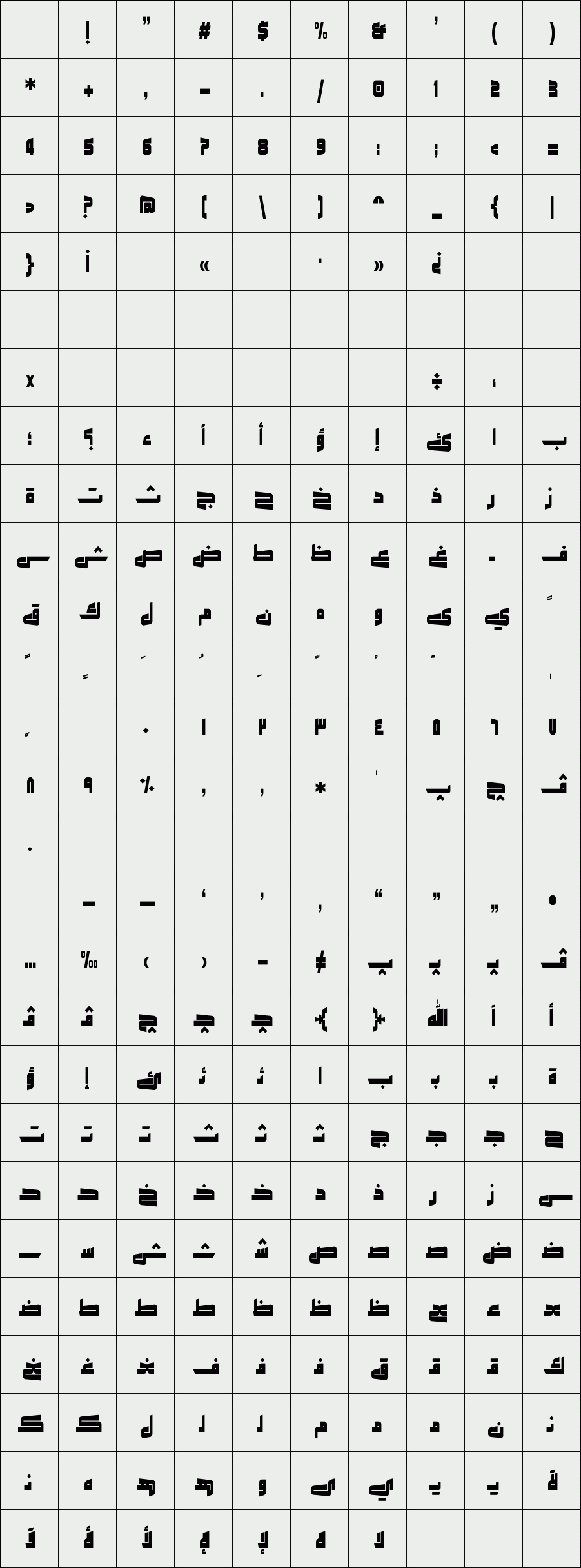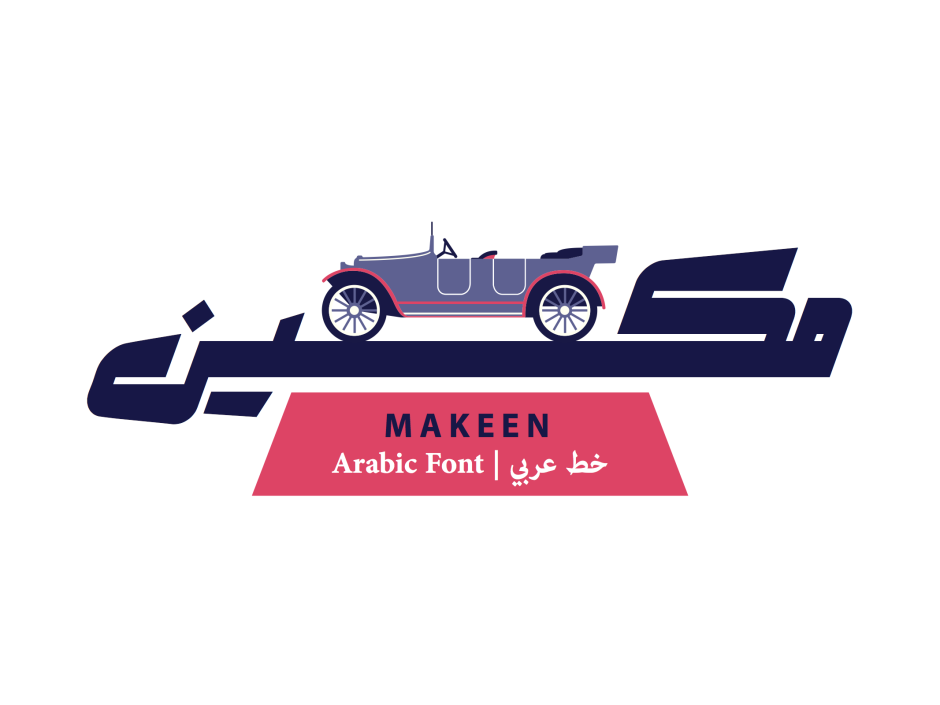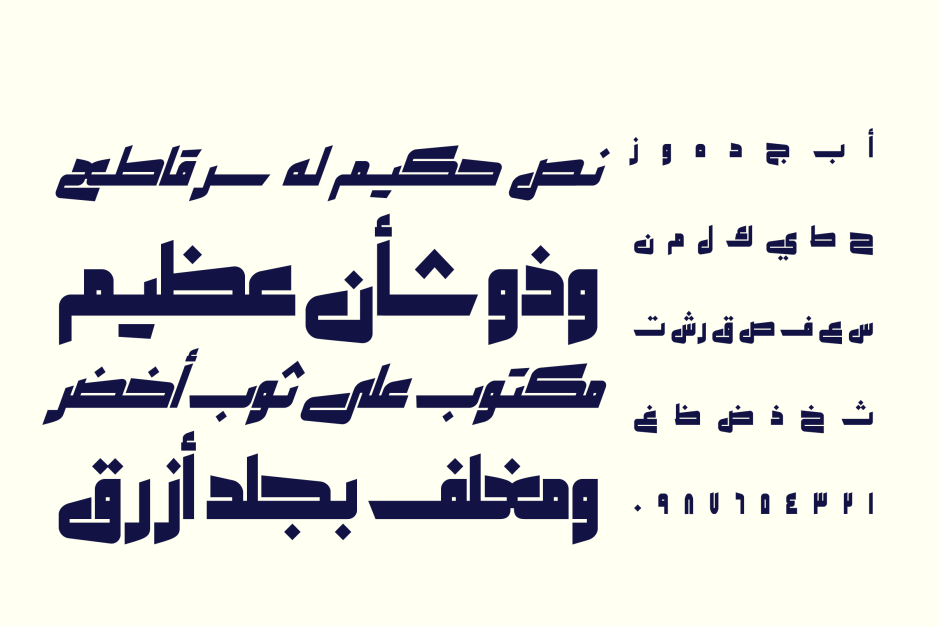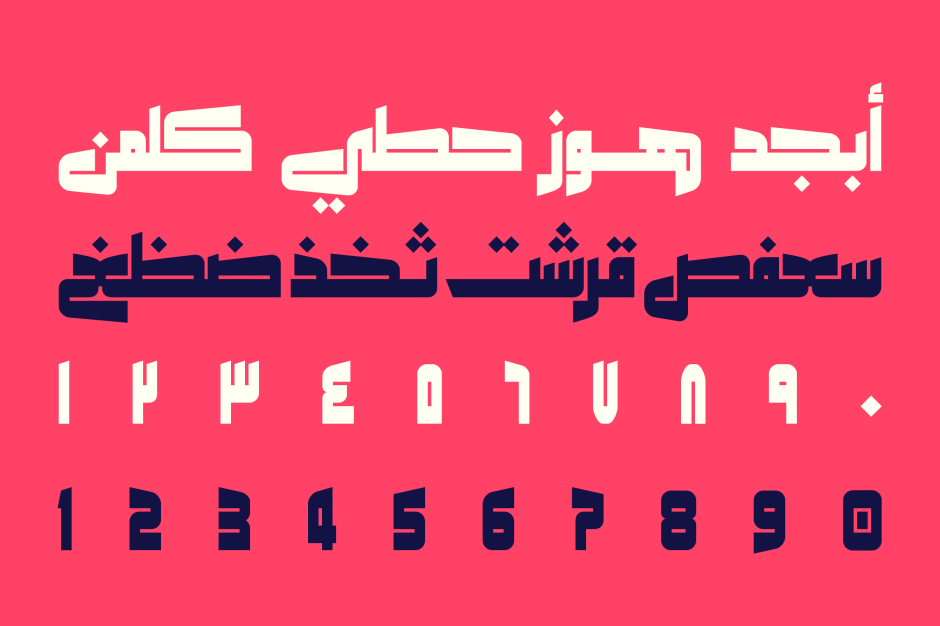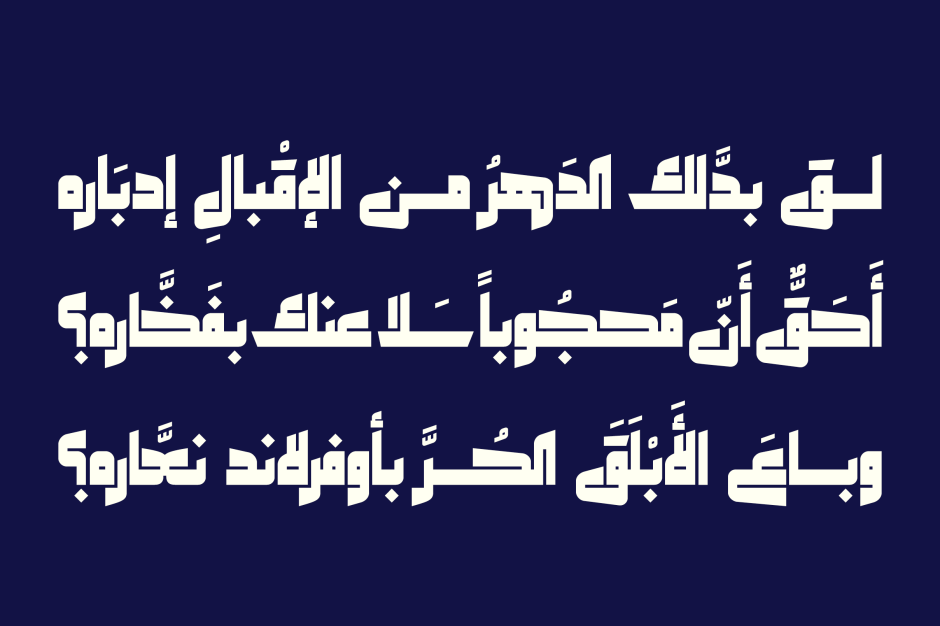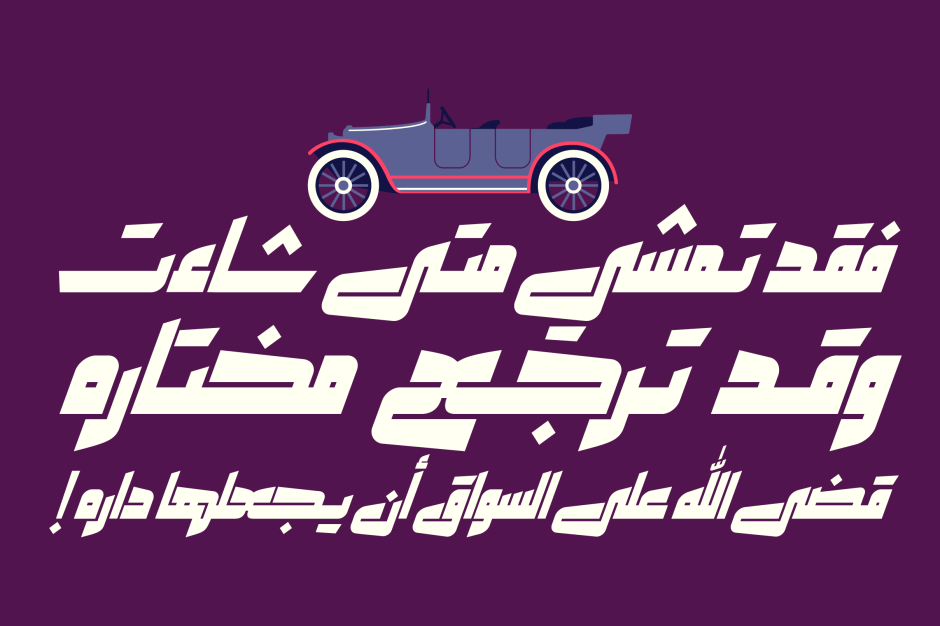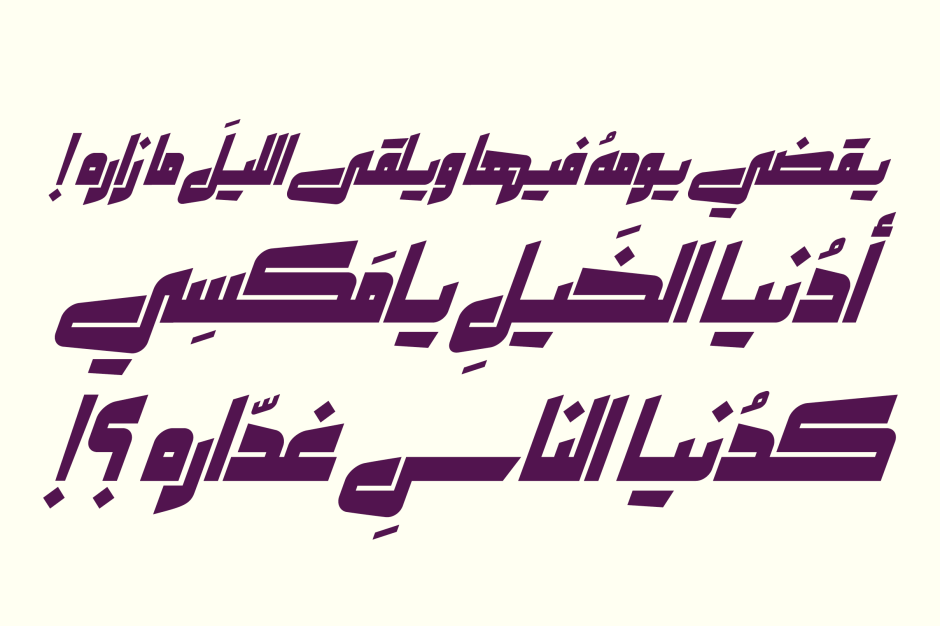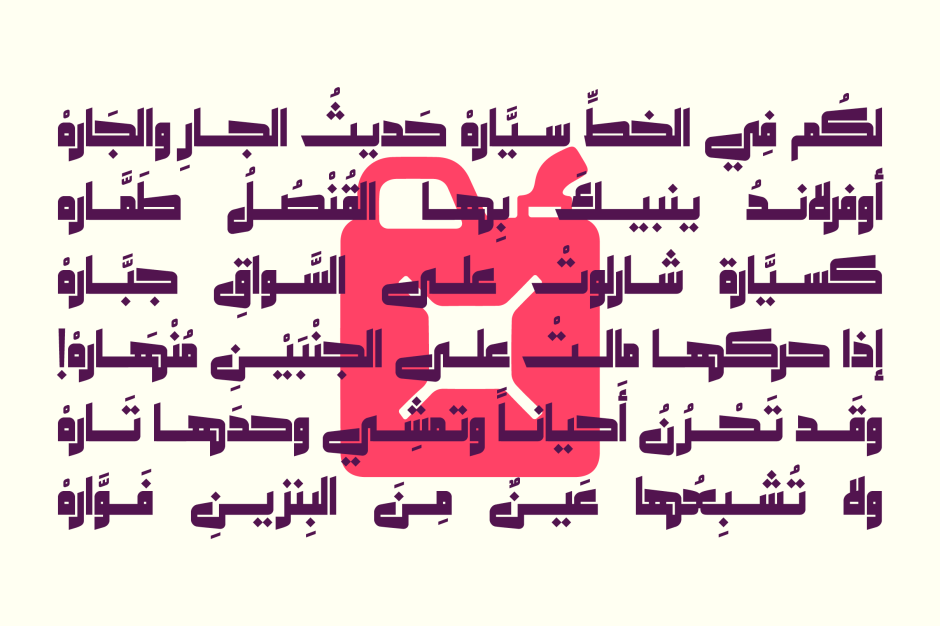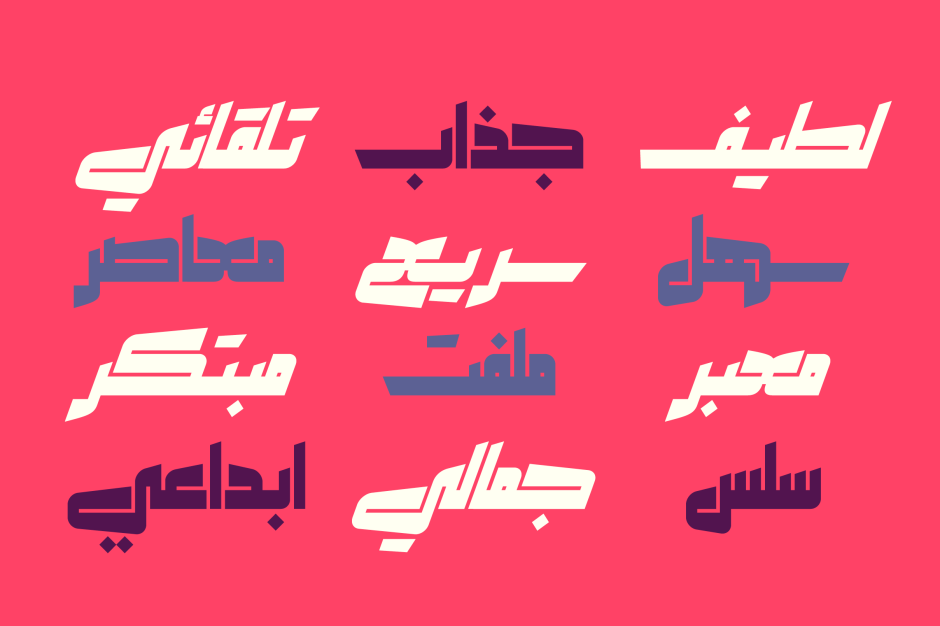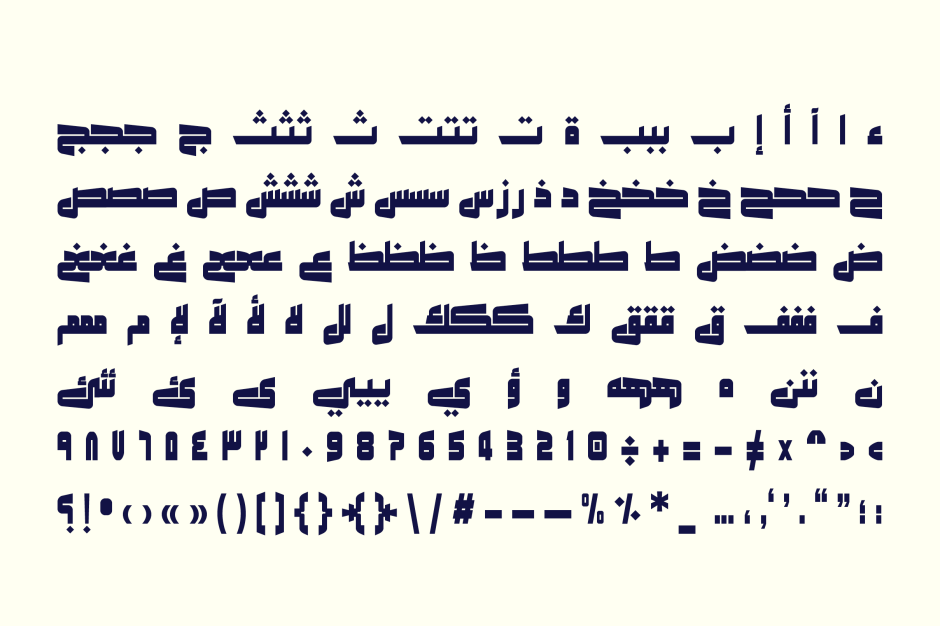
Makeen
/ Joined-Dots
Makeen is the Arabic word that means deep-rooted, firmly established, honored and powerful. Makeen is an Arabic display font that suits various range of applications including, web, advertising, publication and print. The font family consists of three styles namely; Regular, Slant and Joined-Dots.